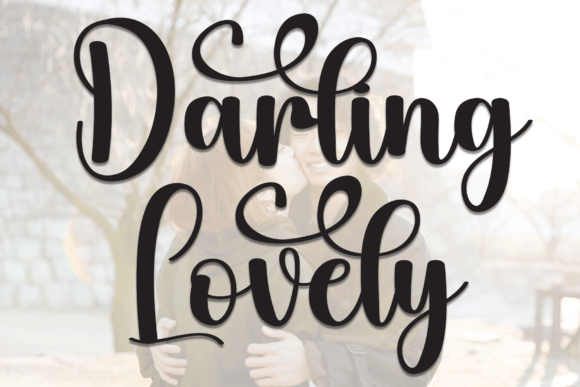
Introducing Darling Lovely Font: Elevate Your Designs with Elegance and Charm
In the world of typography, fonts play a crucial role in conveying the tone and personality of a brand or design. Among the numerous fonts available, Darling Lovely stands out as a stylish handwritten script font that seamlessly blends elegance with a modern flair. Its unique characteristics make it an ideal choice for various design projects, including branding, invitations, and social media. In this article, we’ll explore the features and benefits of Darling Lovely Font and how it can elevate your designs with its effortless charm.
What is Darling Lovely Font?
Darling Lovely is a beautifully crafted handwritten script font that exudes warmth and sophistication. Its flowing strokes and organic curves give it a personal and refined touch, making it perfect for designs that require a high level of elegance. The font’s modern flair ensures that it remains fresh and relevant, setting it apart from traditional script fonts.
Key Features of Darling Lovely Font
- Handwritten Script Style: Darling Lovely boasts a genuine handwritten script style that adds a personal touch to any design.
- Elegant and Modern: The font combines elegance with a modern flair, making it suitable for a wide range of design projects.
- Flowing Strokes and Organic Curves: The font’s flowing strokes and organic curves create a sense of warmth and sophistication.
- Highly Versatile: Darling Lovely is ideal for various design projects, including branding, invitations, social media, and more.
Benefits of Using Darling Lovely Font
Darling Lovely Font offers numerous benefits that make it an excellent choice for designers and brands. Some of the key benefits include:
- Unique and Memorable: The font’s unique style ensures that your designs stand out and leave a lasting impression.
- Emotional Connection: The handwritten script style of Darling Lovely creates an emotional connection with the audience, making your designs more relatable.
- Flexibility: The font’s versatility allows you to use it across various design projects, from branding to social media.
- Ease of Use: Darling Lovely is easy to read and understand, making it perfect for designs that require clear communication.
Design Applications of Darling Lovely Font
Darling Lovely Font is suitable for a wide range of design applications, including:
- Branding: Use Darling Lovely to create a unique and memorable brand identity that reflects your values and personality.
- Invitations: Add a touch of elegance and sophistication to your invitations, making them perfect for special occasions.
- Social Media: Use Darling Lovely to create engaging and visually appealing social media content that resonates with your audience.
- Packaging: Elevate your packaging designs with Darling Lovely, making your products stand out on store shelves.
Tips for Using Darling Lovely Font Effectively
To get the most out of Darling Lovely Font, follow these tips:
- Pair with Neutral Backgrounds: Pair Darling Lovely with neutral backgrounds to create a clean and elegant design.
- Experiment with Colors: Experiment with different colors to find the perfect combination that complements your design.
- Use for Headings and Titles: Use Darling Lovely for headings and titles to add a touch of elegance and sophistication.
- Keep it Simple: Avoid overusing Darling Lovely; keep your design simple and focused to ensure maximum impact.
Darling Lovely Font is a stylish handwritten script font that combines elegance with a modern flair. Its unique characteristics make it an ideal choice for various design projects, from branding to social media. With its flowing strokes and organic curves, Darling Lovely adds a personal and refined touch to any design. By following the tips outlined in this article, you can effectively use Darling Lovely to elevate your designs and create a lasting impression on your audience.
- What is Darling Lovely Font?: Darling Lovely is a stylish handwritten script font that combines elegance with a modern flair.
- What design projects is Darling Lovely suitable for?: Darling Lovely is suitable for various design projects, including branding, invitations, social media, and more.